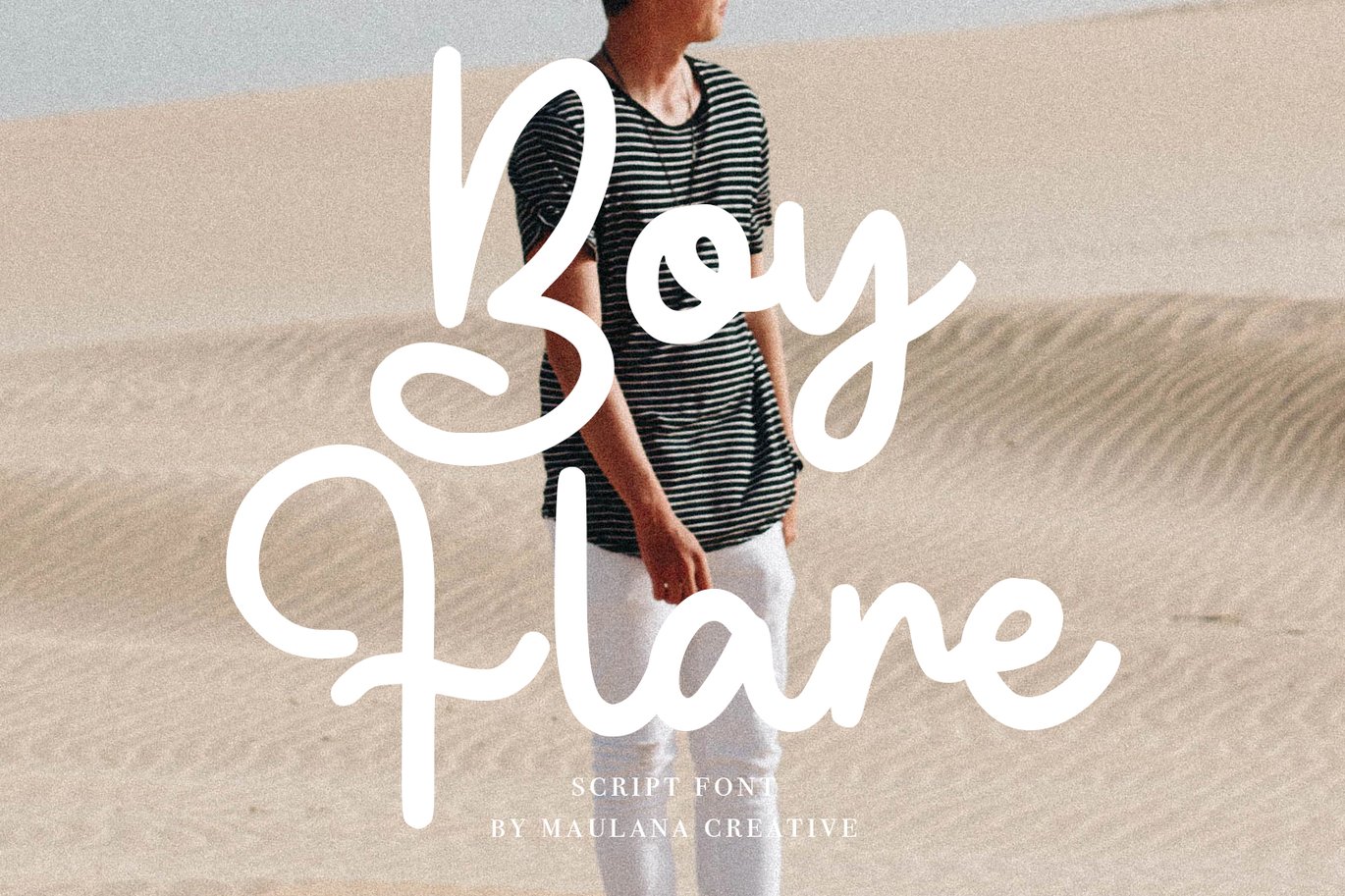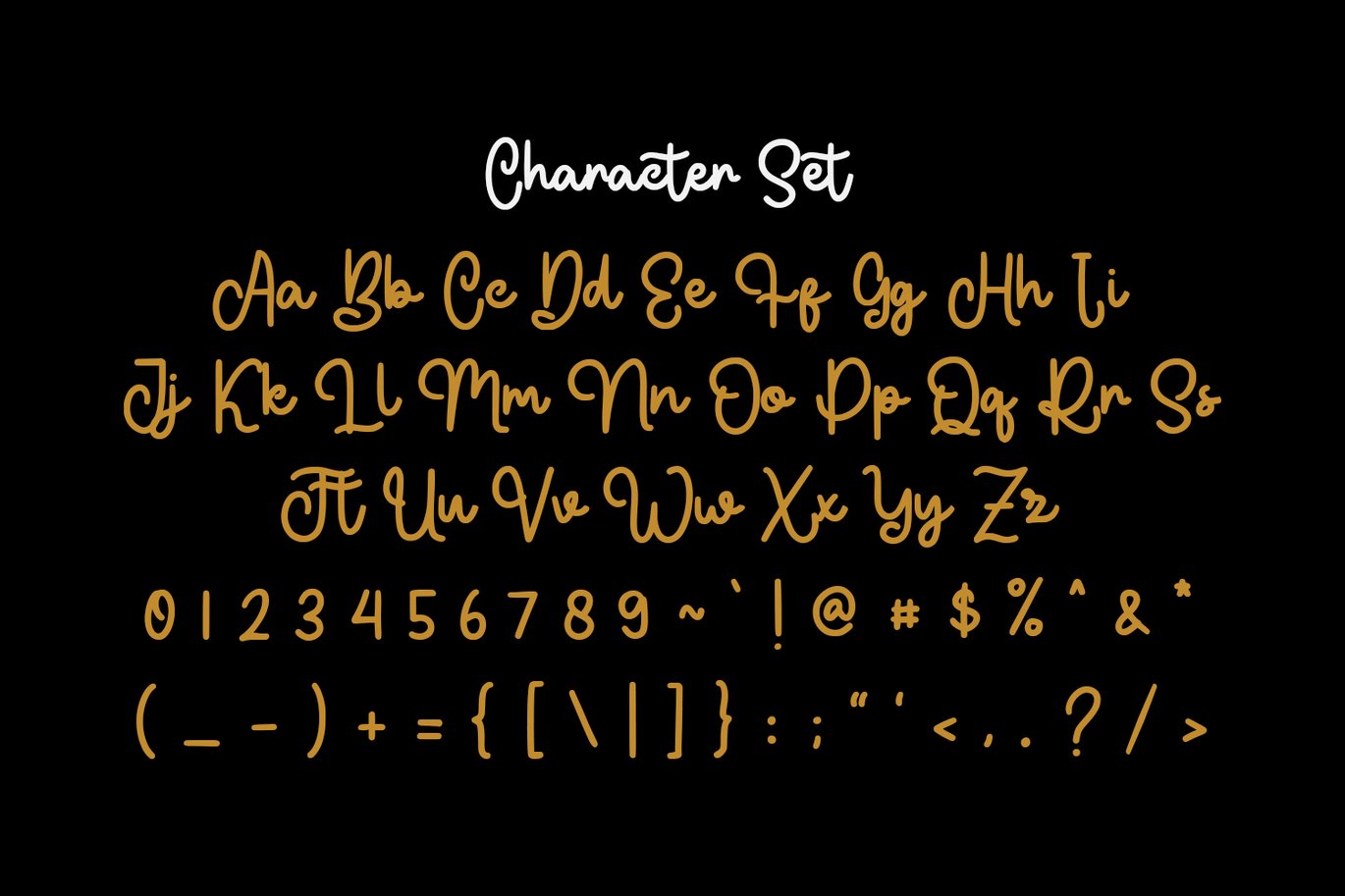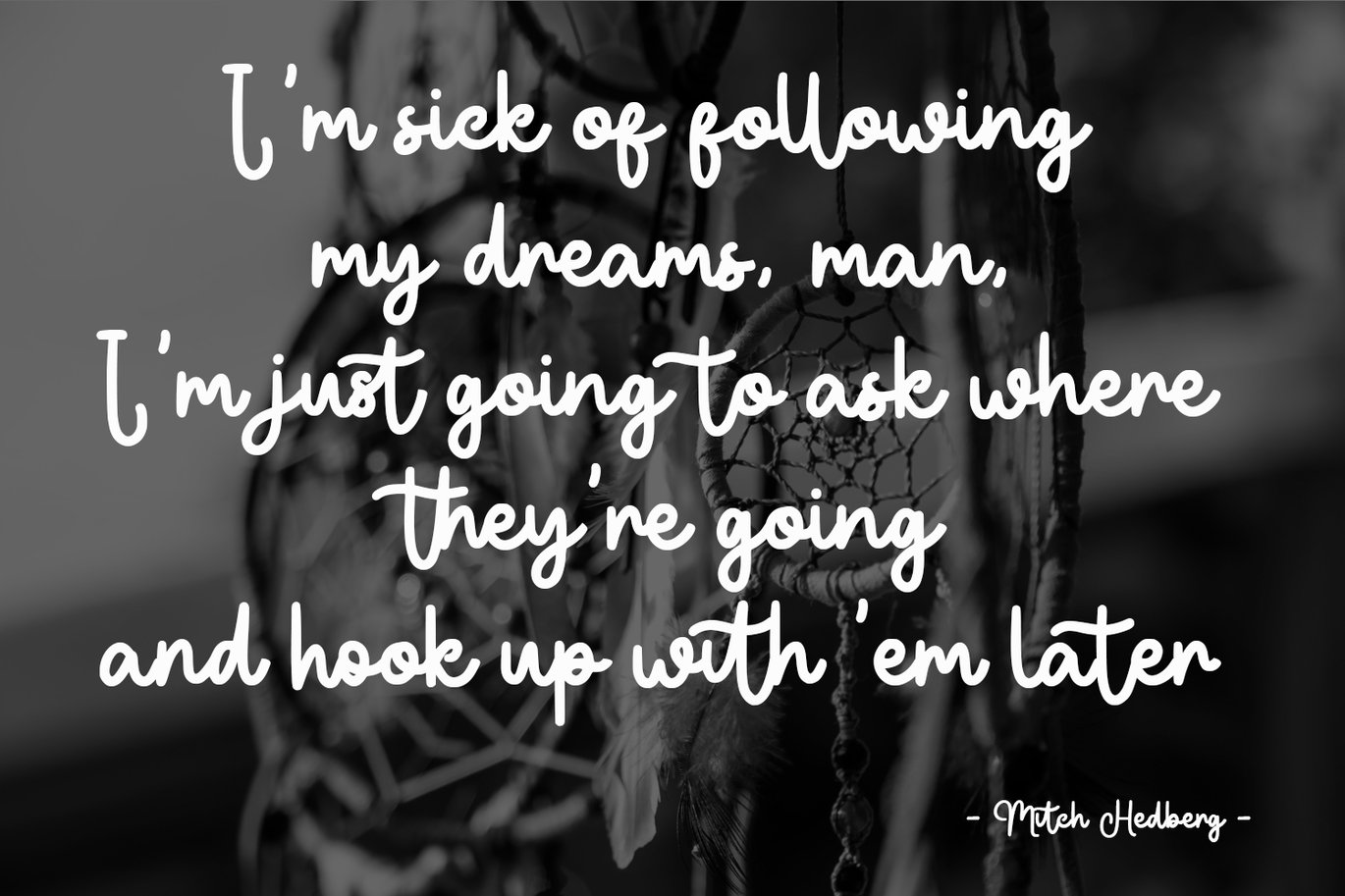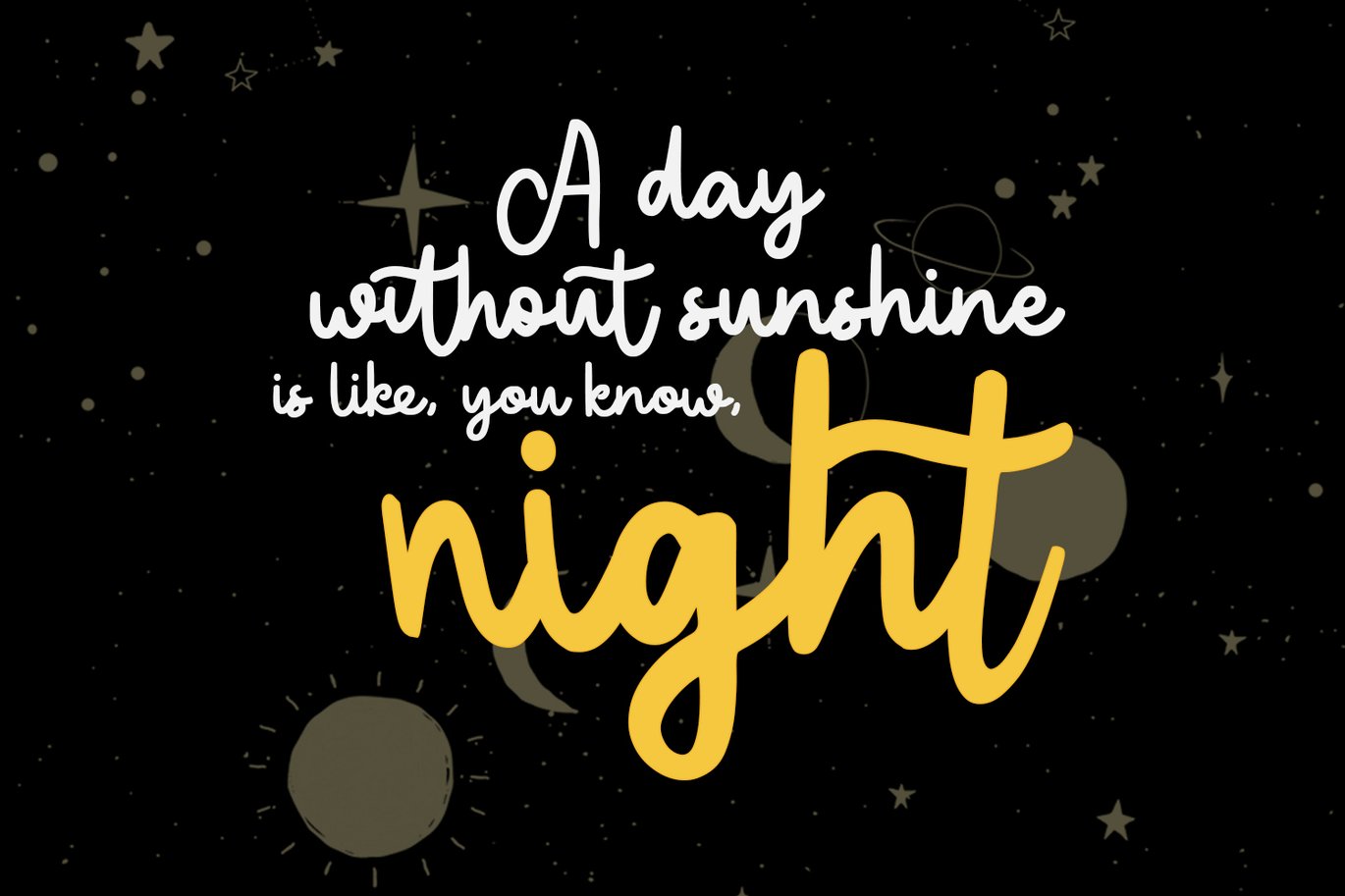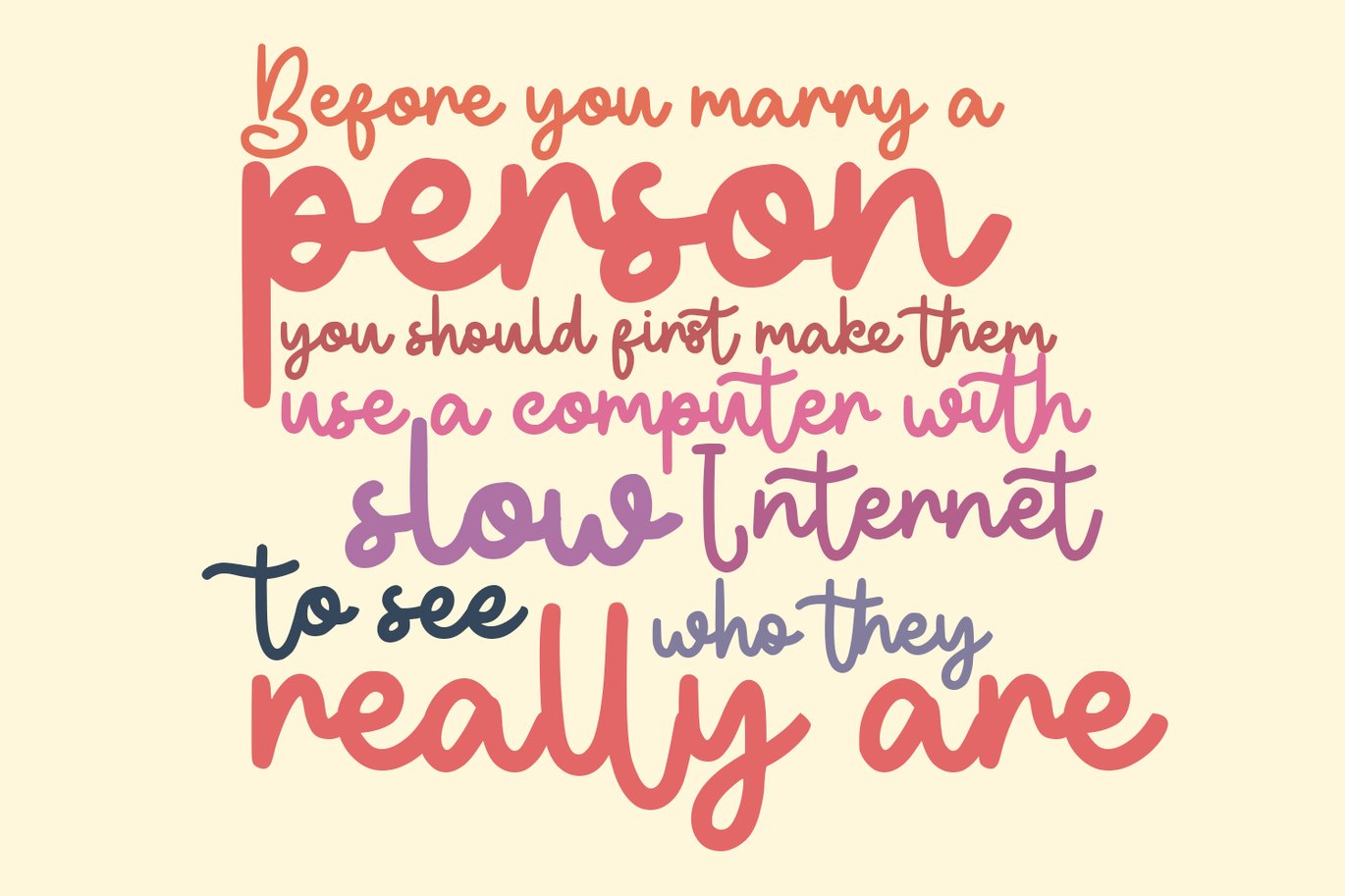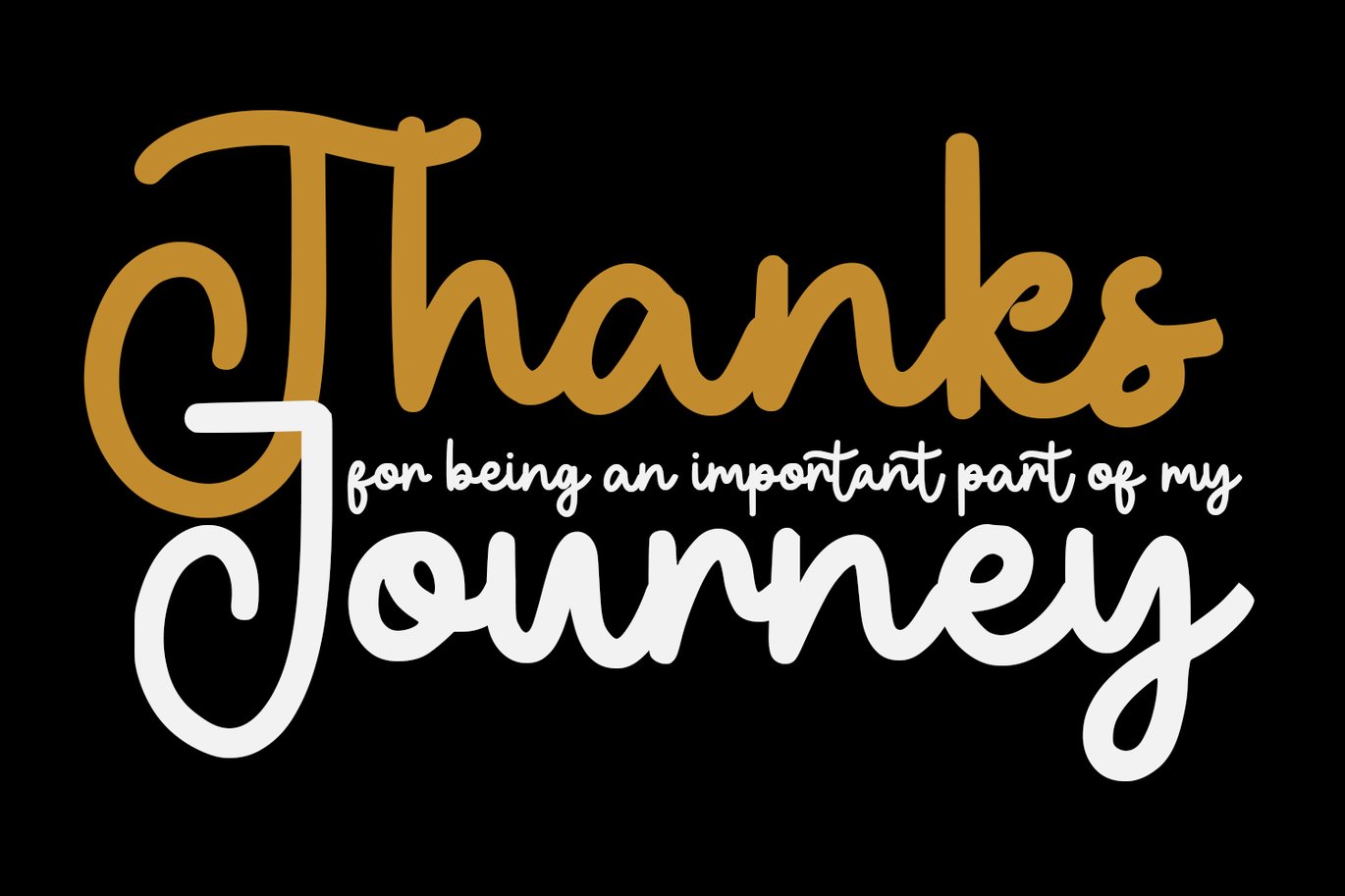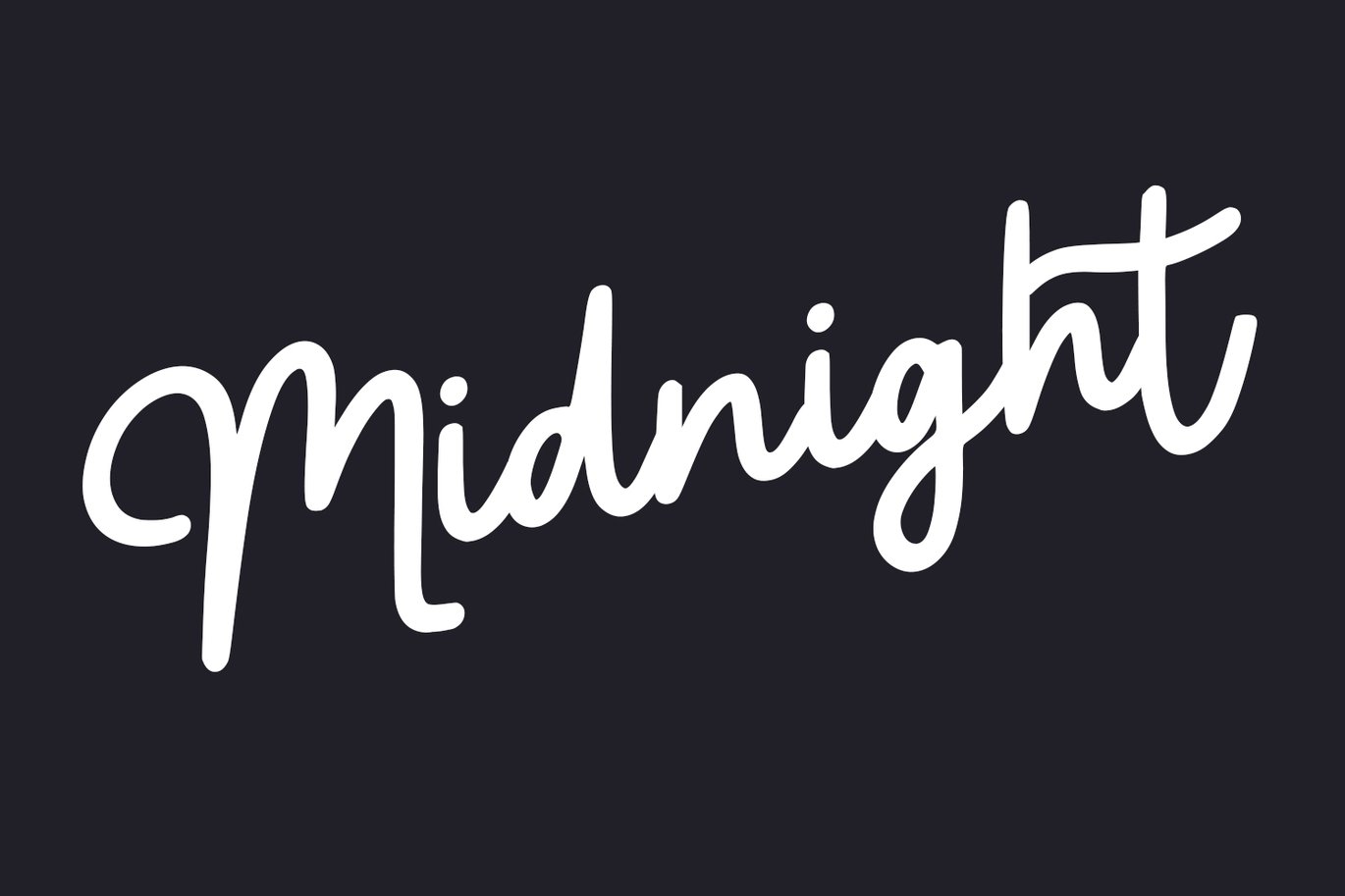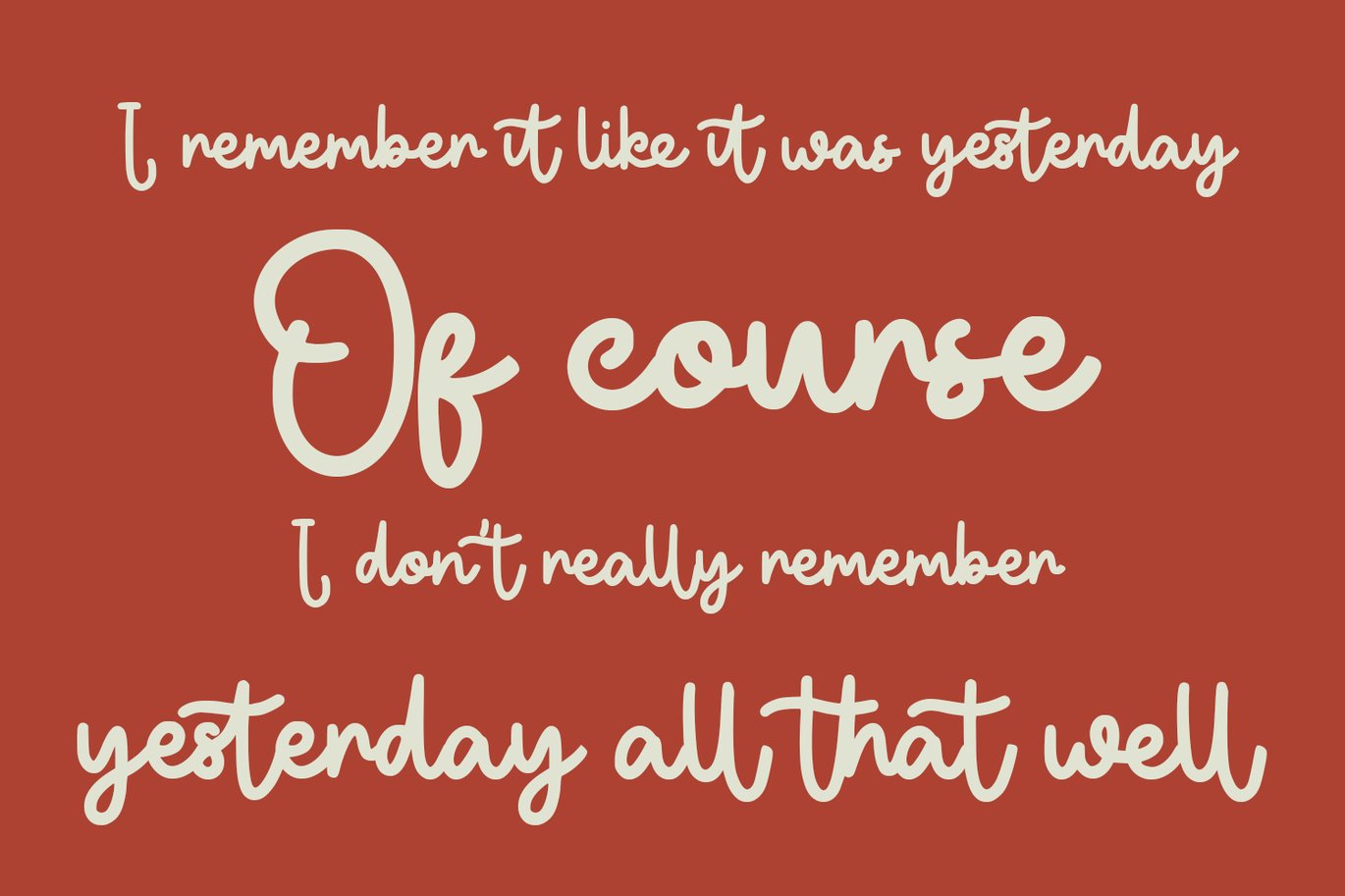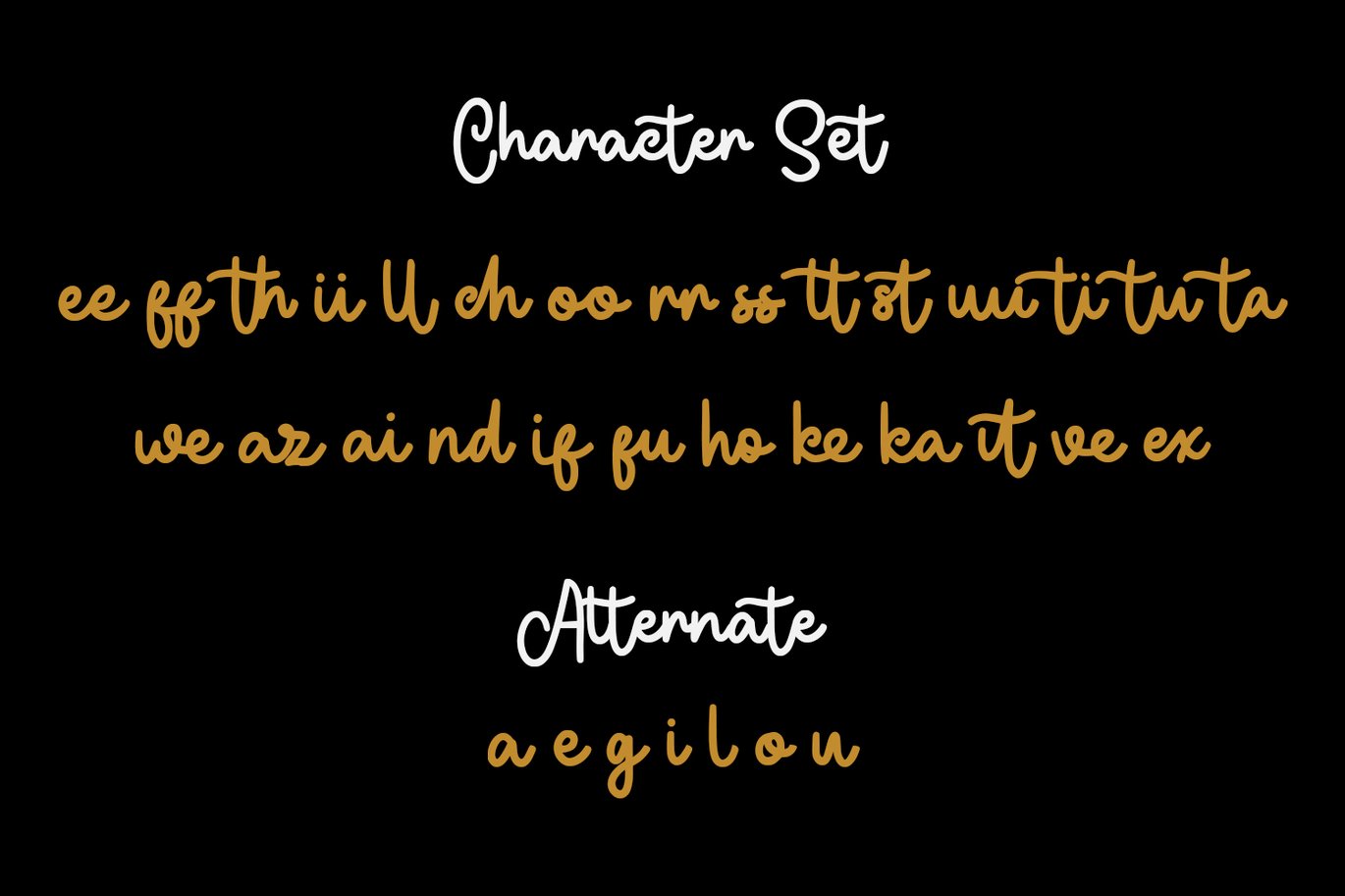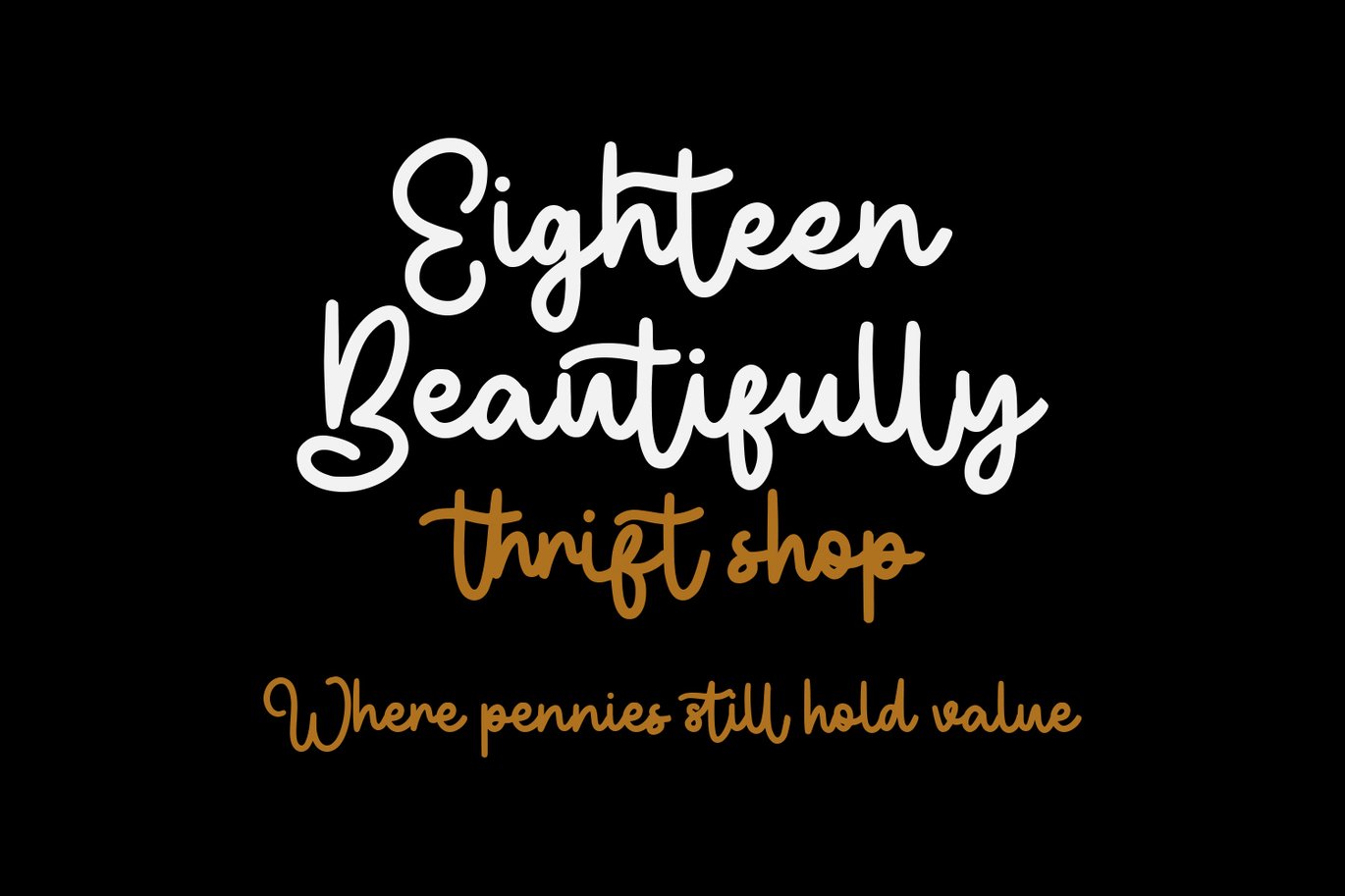
Boyflare Cursive Script Font
Boyflare is a cursive handwritten script font. With bold mono-line stroke, fun character with a bit of ligatures and alternates. To give you an extra creative work. Boyflare font support multilingual more than 100+ language. This font is good for logo design, Social media, Movie Titles, Books Titles, a short text even a long text letter and good for your secondary text font with sans or serif. Make a stunning work with Boyflare font.